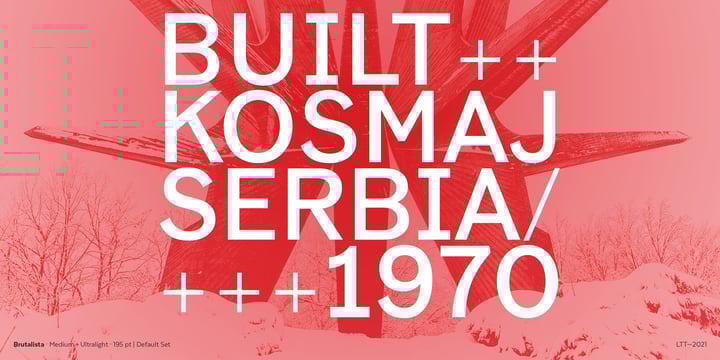
Brutalista
by Latinotype
The Brutalista Font Family was designed by Jorge Cisterna and published by Latinotype. Brutalista contains 28 styles and family package options. More about this family
Brutalista is a typeface inspired by the architectural brutalist style, which seeks to use the expression of raw or raw material. In graphic design it has been used to break rules and attract attention.
His drawing has its roots in grotesque and neo-grotesque sources from the early twentieth century, but with a current style. It has a medium x height, clear counterforms, low contrast, which give it versatility and functionality. Peculiar cuts and drawings are also used in some characters, which give them personality
It is an ideal font for headlines and brands, but also for when you need to present simple and clear information.
Designers: Jorge Cisterna
Foundry: Latinotype